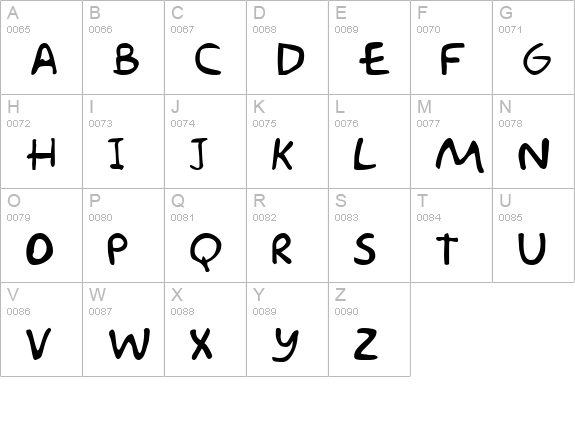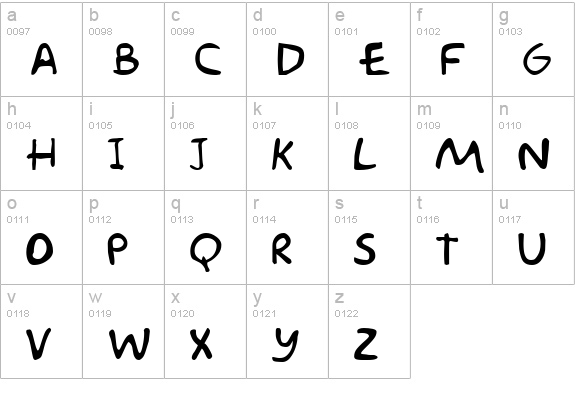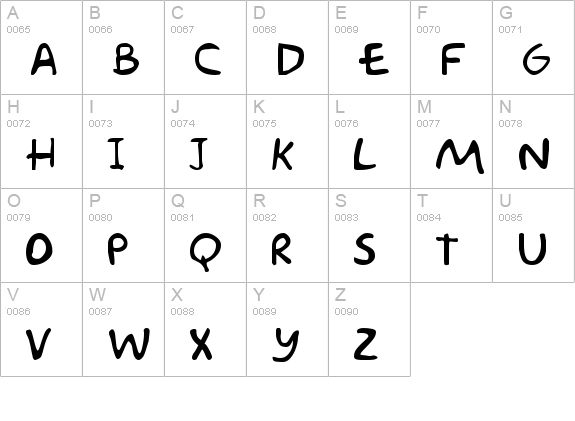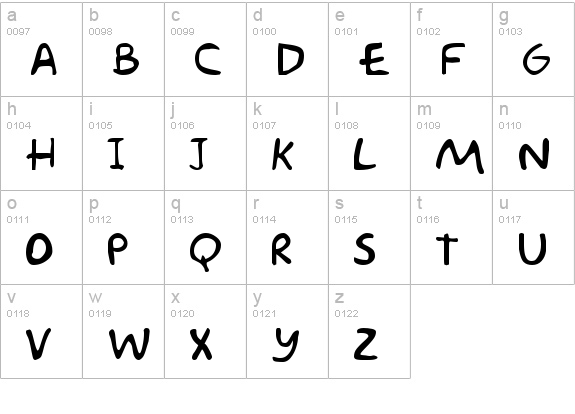
Groening Plain Font Details
Groening Plain is a stunning and versatile font that effortlessly combines modernity with a touch of elegance. With its clean lines and balanced proportions, this typeface is perfect for a wide range of design projects, from branding to editorial design. The simplicity of Groening Plain makes it highly legible and suitable for both headlines and body text. This font is offered for free, allowing designers to access its timeless appeal without any cost constraints. Whether you are working on a personal project or a commercial venture, Groening Plain is a reliable choice that will elevate your designs to new heights. To get your hands on Groening Plain for free, simply visit FontsMarket.com and download this exquisite font to enhance your design arsenal. Discover the beauty and versatility of Groening Plain today and unlock a world of creative possibilities.